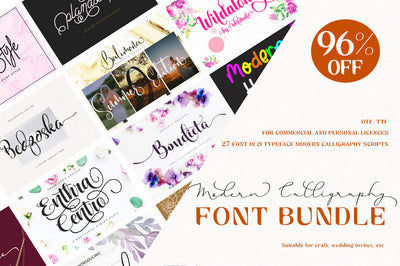
Modern Calligraphy Font Bundle
This bundle features 27 highly legible PUA encoded fonts in 21 typeface. Elegant in nature, these script fonts feature a variety of extra characters to give you some real flexibility in your designs.
Highlights:
- 27 fabulous fonts from 21 typeface in 1 discounted deal.
- Tons of OpenType Features - stylistic alternates, ligatures, extra characters, punctuation, etc.
- Step things up with this collection of fresh script fonts.
- Great choice of fonts for greeting cards, posters, T-shirts, business cards, totes, mugs, prints.
- Speak Globally - multilingual support.